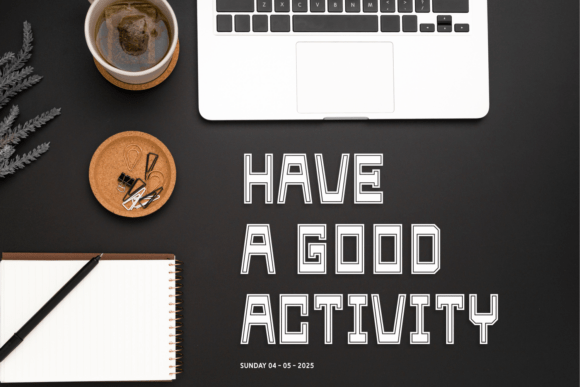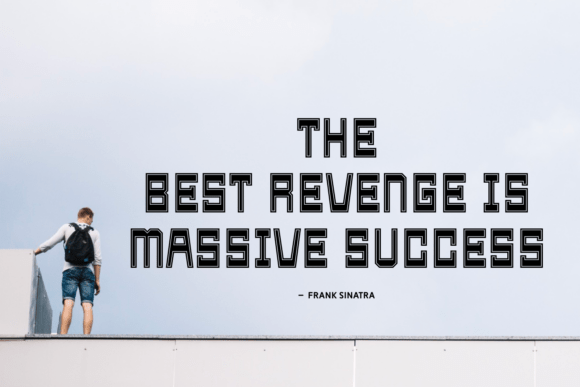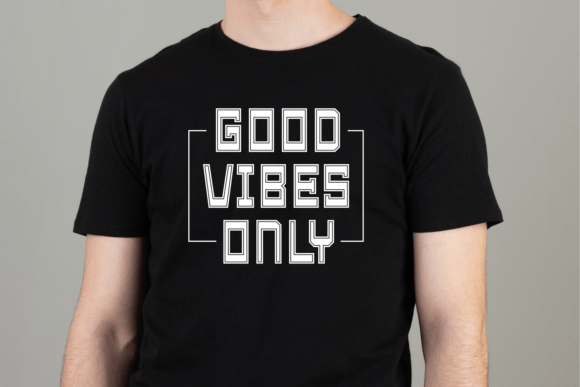
Serve Font: A Modern Display Font for Bold Headlines
About the Serve Font
The Serve Font offers a perfect balance of form and function for your design needs. Illuminate your work with Serve Display Fonts, a versatile slab serif typeface encapsulating diversity in every stroke. While adding a distinguished elegance to your book covers and brand aesthetic, it never fails to engage the viewer attention. It’s unique allure doesn’t stop there, effortlessly infusing an alluring charm onto crafts and greeting cards. Serve Display Fonts has innate versatility that allows it to adeptly alter the mood of Father’s Day to holiday scripts. It commands presence in the world of logo and logotype creations, enhancing the visual impact of any identity. Designed by 7ntypes, Serve Display Fonts are a staple for sophisticating magazine layouts, powerful quotes and multilingual content. Transform promotional assets with Serve Display Fonts – your secret weapon for captivating poster and product graphics. Ideal for school assignments or silhouette designs, it cultivates a personalized essence in your work. Proving a popular choice among T-shirt font enthusiasts, it finds a perfect home on football shirts. Let Serve Display Fonts breathe life into your typographic creations, embodying a spirit of design versatility and uniqueness.
Serve Font Usage Examples